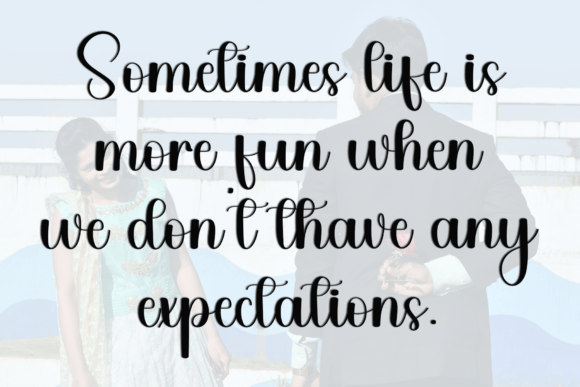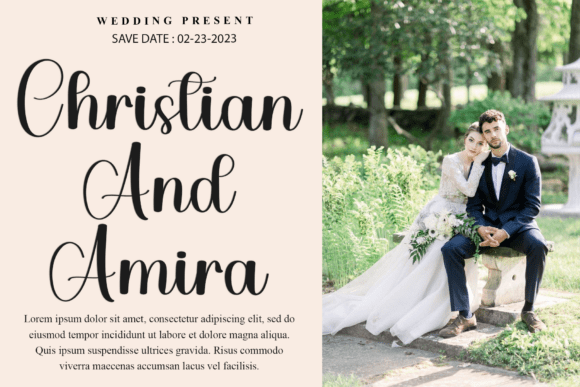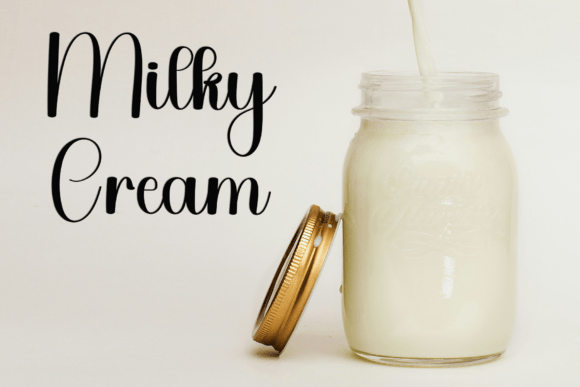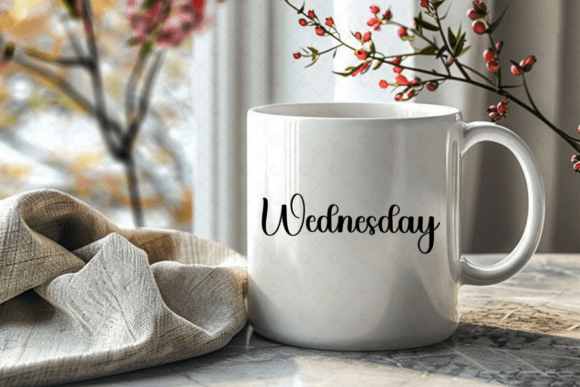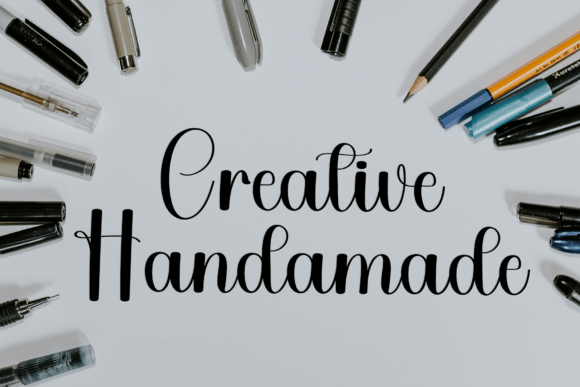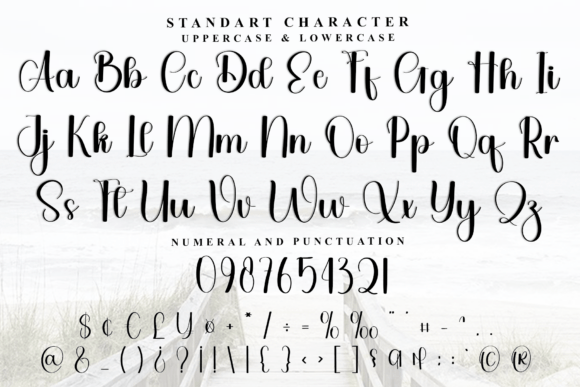
Introduction to House Management Font
As the holiday season approaches, designers are often on the lookout for the perfect font to capture the magic of the moment. Whether you’re creating a festive greeting card, a set of gift tags, or a holiday-themed project, the right font can make all the difference. I still remember the joy of rummaging through my grandmother’s old scrapbook, filled with handcrafted cards and decorations that exuded warmth and personality. It’s moments like these that inspire me to seek out unique and high-quality design resources, like the enchanting House Management Font.
With its whimsical flair and decorative elements, the House Management Font is a valuable addition to any designer’s toolkit. Perfect for adding a touch of nostalgia and cheer to your creative projects, this font is sure to delight. Whether you’re working on a design project that requires a transparent background or a high-quality image, the House Management Font is a reliable and versatile resource that’s sure to deliver.
Key Features of House Management Font
- High-Quality Typography: House Management Font is a professional, elegant font perfect for various creative projects, including business presentations, reports, and marketing materials.
- Transparent Background: This font features a transparent background, allowing for easy integration with any design resource, including images and other graphics.
- High Resolution: The font is available in high resolution, making it suitable for use in large-scale designs, such as billboards and posters.
- Unique Characteristics: House Management Font features a unique, modern design that sets it apart from other fonts in its class, making it an excellent choice for designers looking to add a touch of elegance to their work.
Honest Review: House Management Font
I recently came across the House Management Font and was intrigued by its potential to elevate my design projects. As a designer, I’m always on the lookout for high-quality design resources that can help me create unique and engaging visuals.
Here are some of the things that worked well for me:
- ✨ The font’s modern and minimalist aesthetic makes it perfect for creative projects that require a touch of sophistication.
- ✨ The transparent background option allows for seamless integration with any design element, giving me more flexibility in my design process.
- ⚠️ The font may not be suitable for projects that require a bold or playful tone, as it tends to lean more towards a serious and professional vibe.
- ⚠️ The font’s character set is limited, which may make it less versatile for certain design applications.
Overall, I think the House Management Font is a solid addition to any designer’s toolkit. While it may not be perfect for every project, it’s a high-quality design resource that can add a touch of elegance to your creative work.
For optimal use, pair the House Management Font with a transparent background to create a clean and modern design. You can also use this font in combination with other design elements, such as images or icons, to create a visually appealing design.
The House Management Font is commonly used for creating home management tasks, such as calendars, to-do lists, and reminders. It is also used for creating custom designs for home organization and decor projects.
Does the House Management Font have a transparent background, and how can I customize it?
The House Management Font has a transparent background, making it perfect for designs that require a subtle and elegant look. You can customize the font by adjusting its size, color, and style to fit your project’s needs. Additionally, you can use the font in conjunction with other design elements, such as images and graphics, to create a unique and visually appealing design.